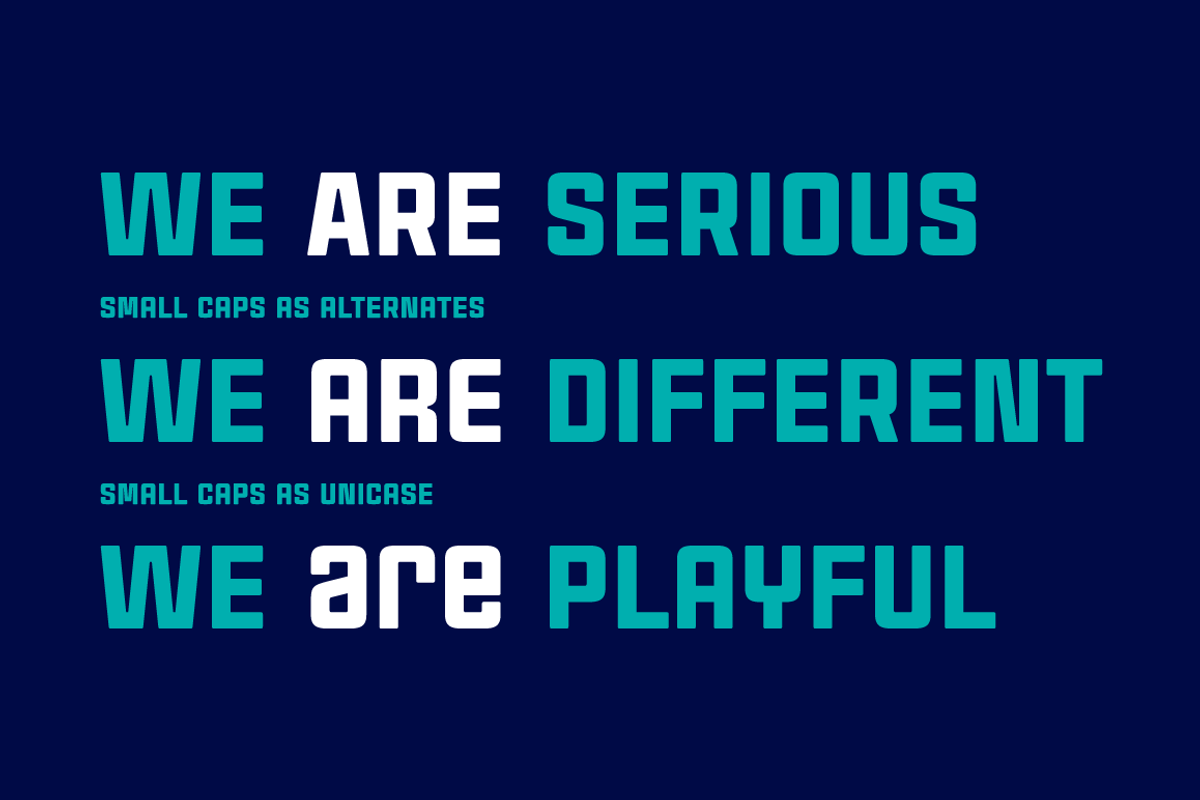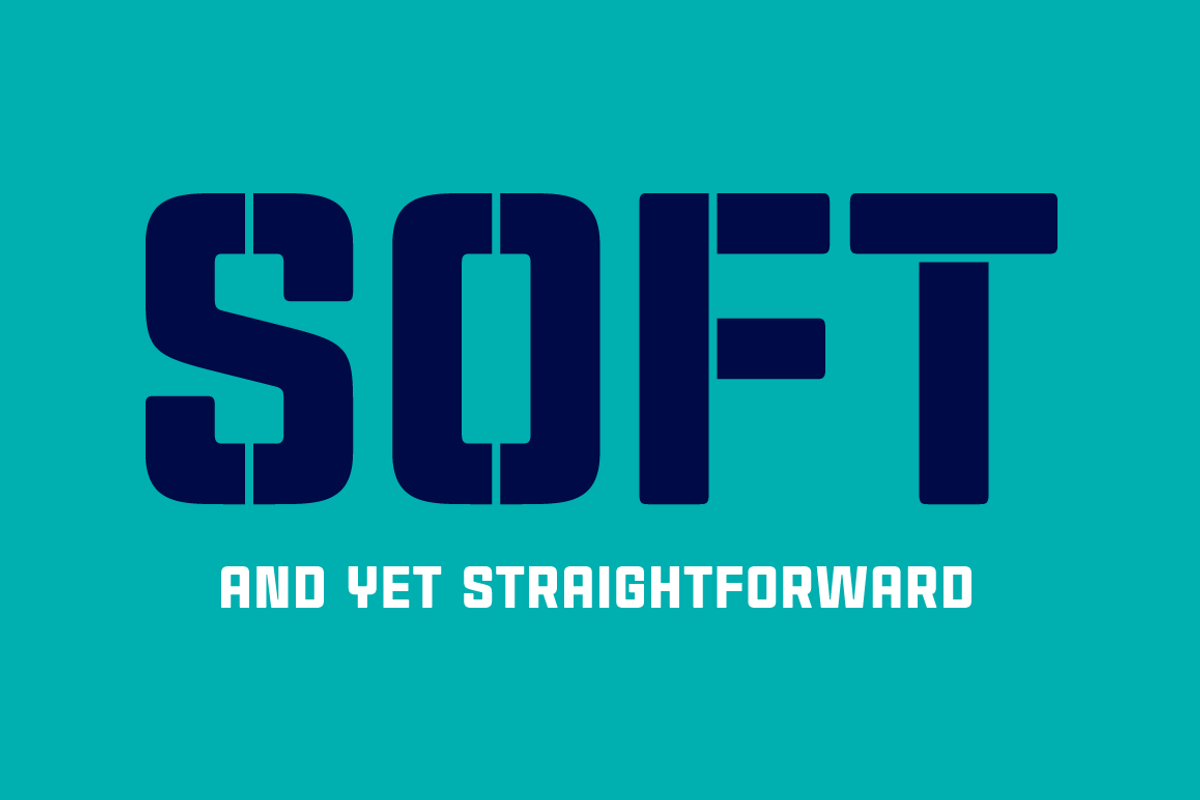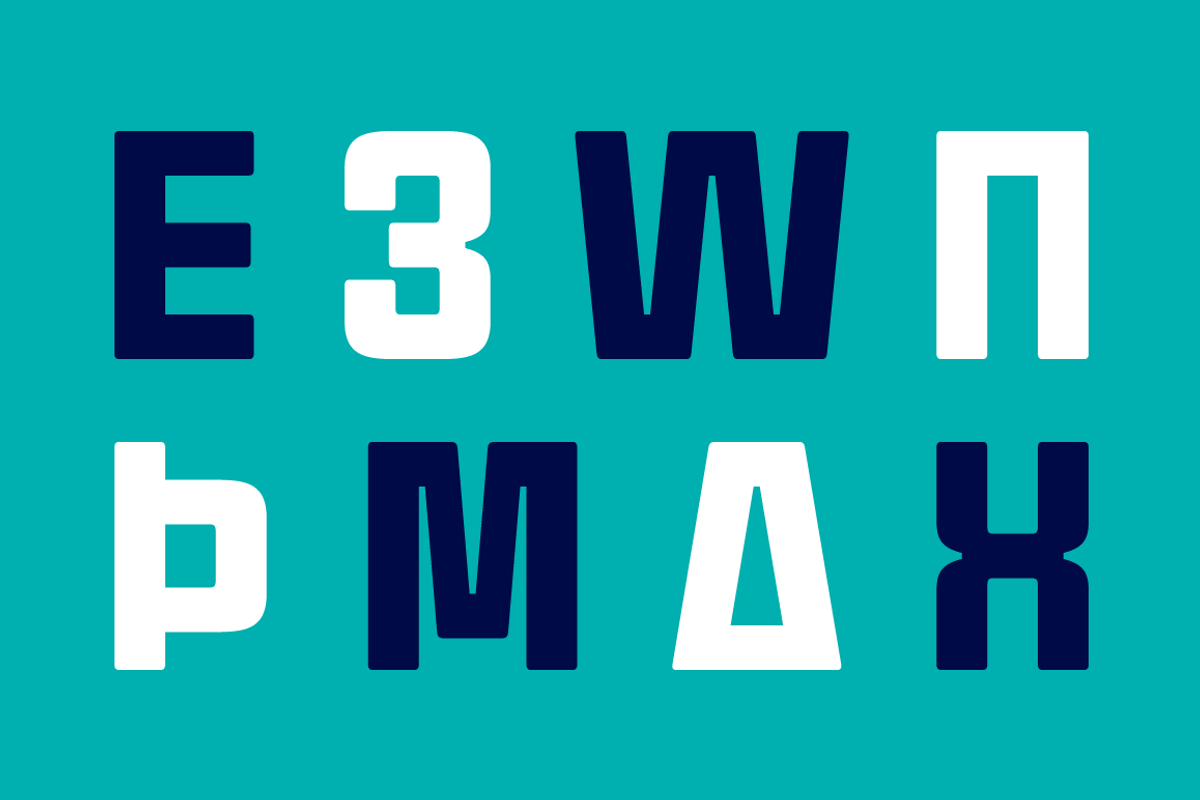
Cintra Font Family
Cintra Font Family by Graviton Font Foundry is a font selected for branding, posters, packaging, typography.
Why Cintra Font Family is worth a look
Cintra Font Family by Graviton Font Foundry fits naturally into Branding, posters, packaging, typography.